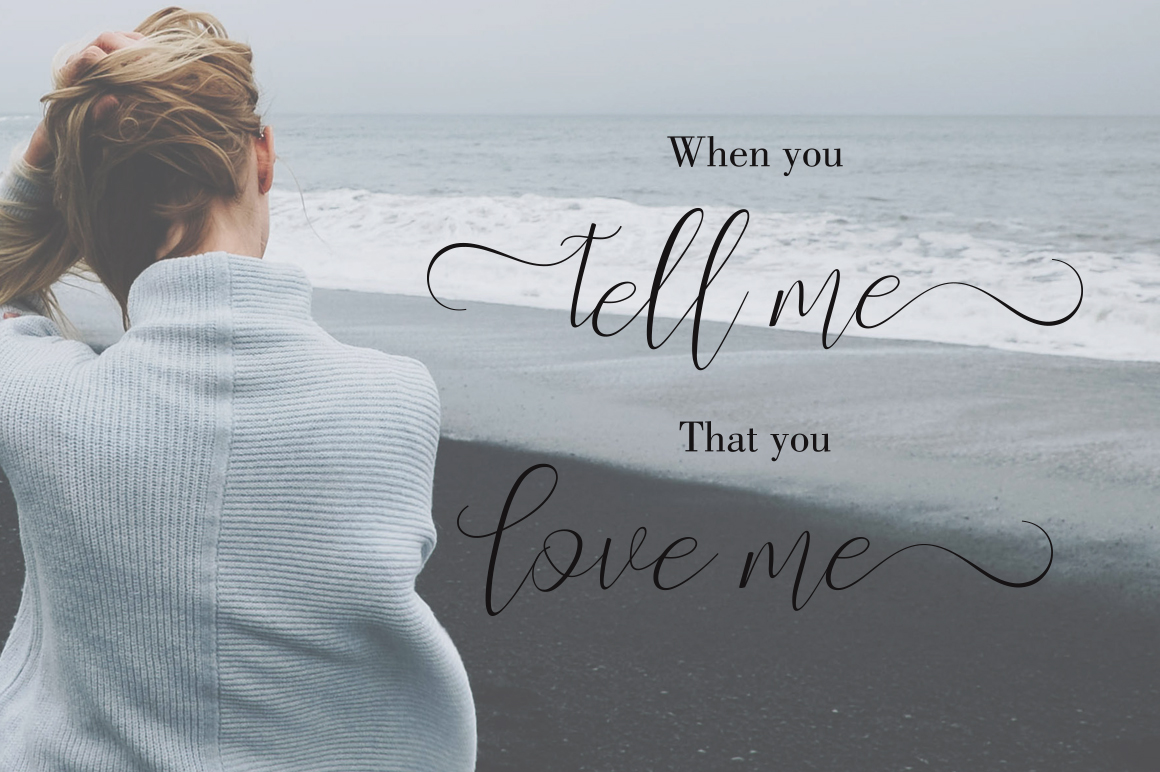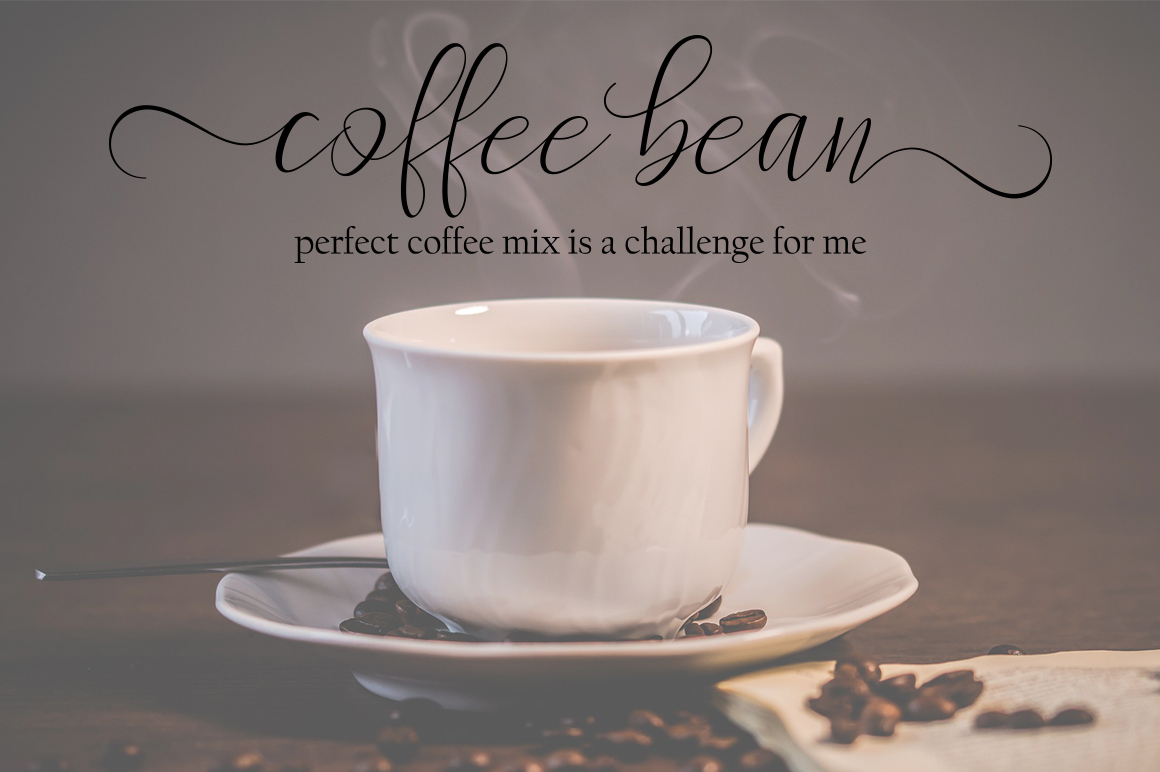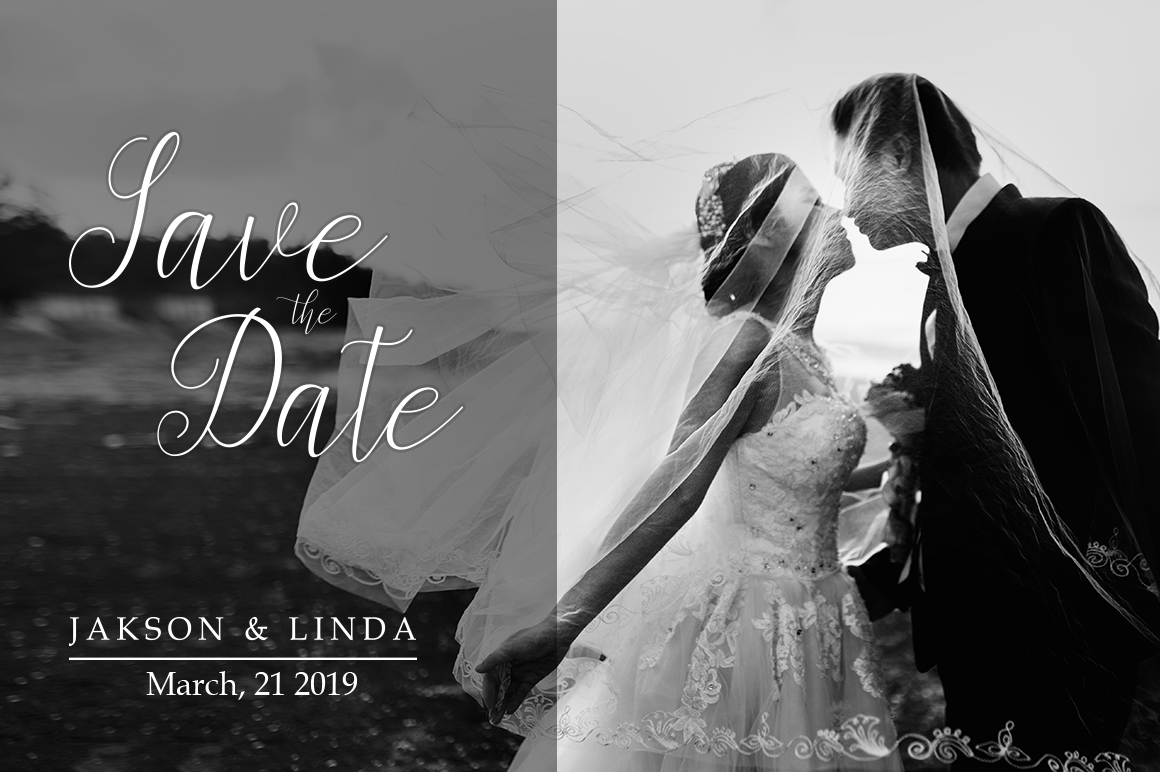
Introduction to Rasella Font
Rasella is a beautiful script font with an informal yet charming appeal.
This font has a thin quality and a slight contrast, so it doesn’t compete but rather enhances your designs .
Key Features of Rasella Font
Why Choose Rasella Font?